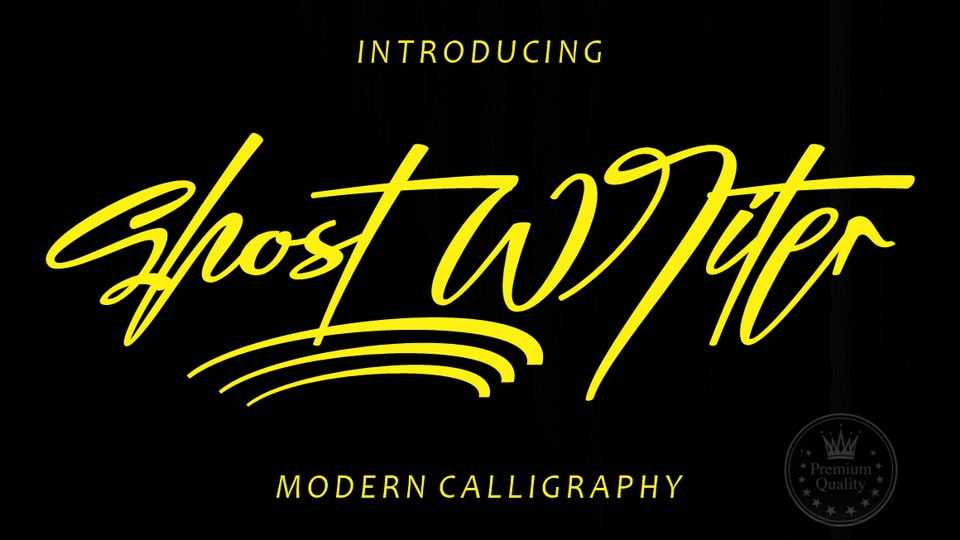
Download Ghost Writer font, a signature, dynamic handcrafted font that also has beautiful OpenType features. Ghost Writer font is great for branding, logo design, clothing, posters, magazines and other design projects.
Designer: Gian Studio